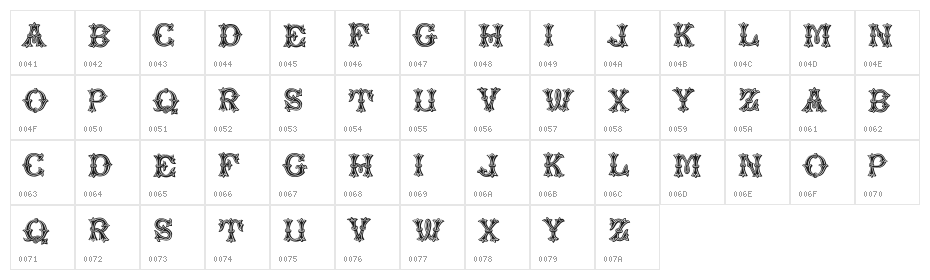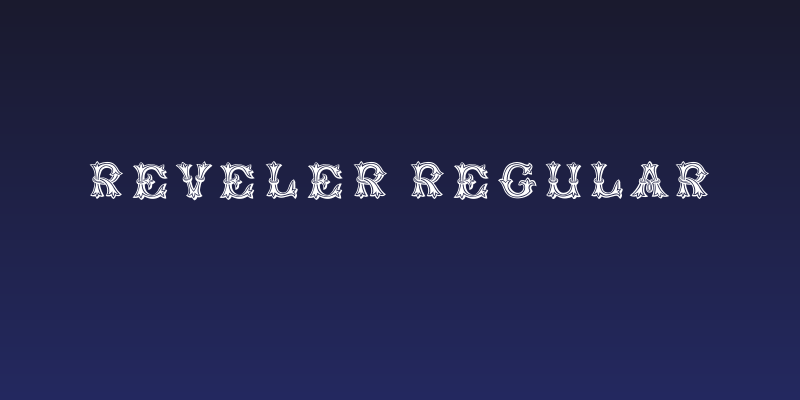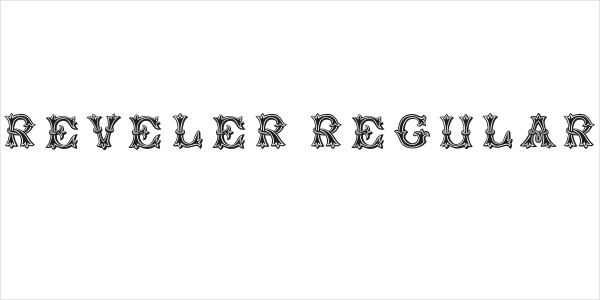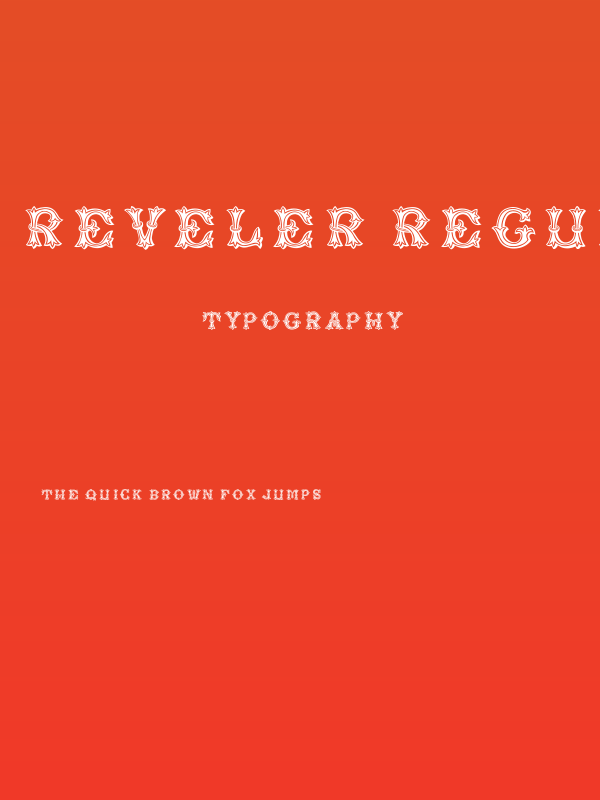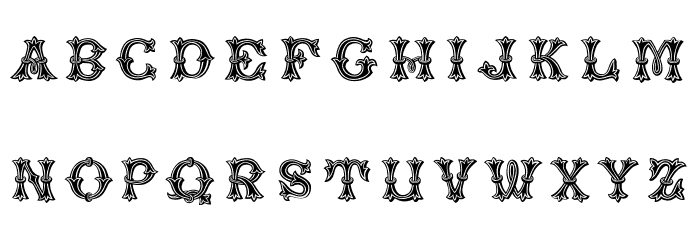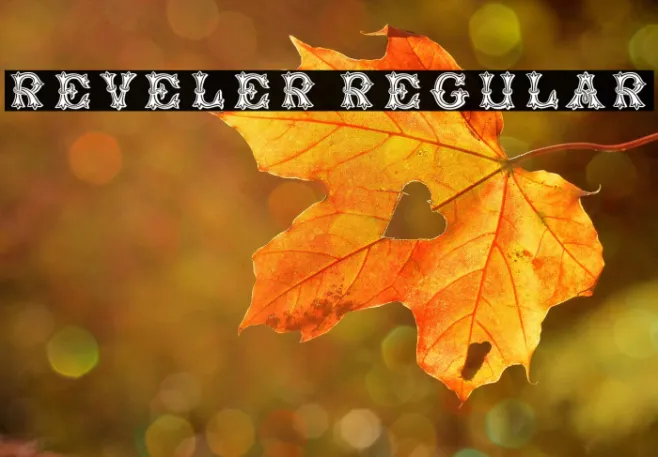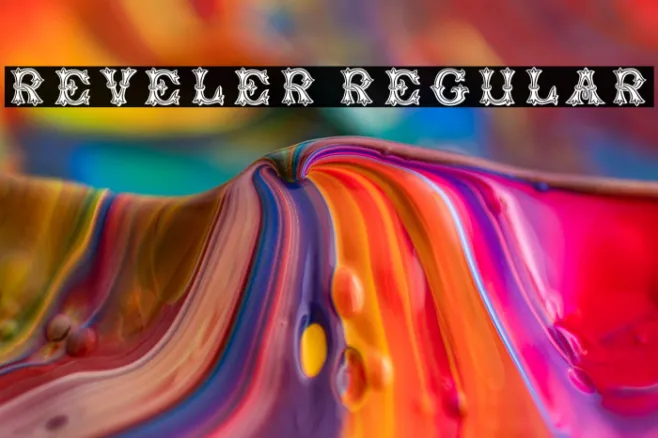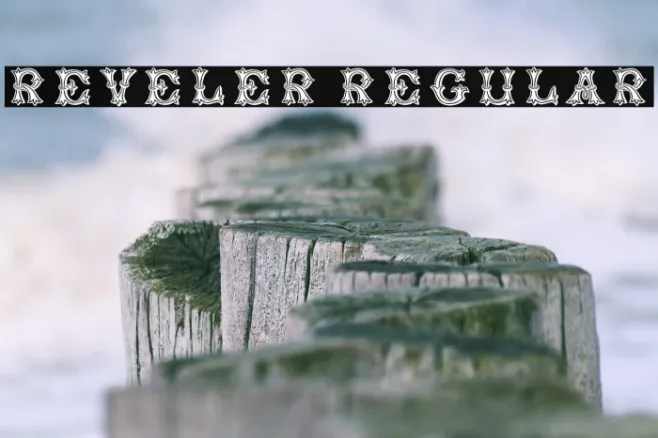
Reveler Regular Font
Reveler Regular Description
This font features an intricate and decorative style, characterized by ornate and elaborate detailing on each letter. The design includes flourishes and embellishments that give it a unique and artistic appearance, reminiscent of vintage or Victorian aesthetics. The letters are bold and eye-catching, making them suitable for display purposes where a strong visual impact is desired. The overall look is both elegant and dramatic, with a sense of grandeur and sophistication.
| Overall Style | Vintage, Decorative |
| Proposed Projects | Ideal for use in invitations, posters, branding, and any project requiring a touch of elegance and sophistication. |